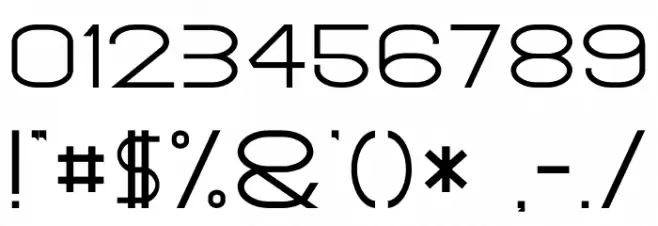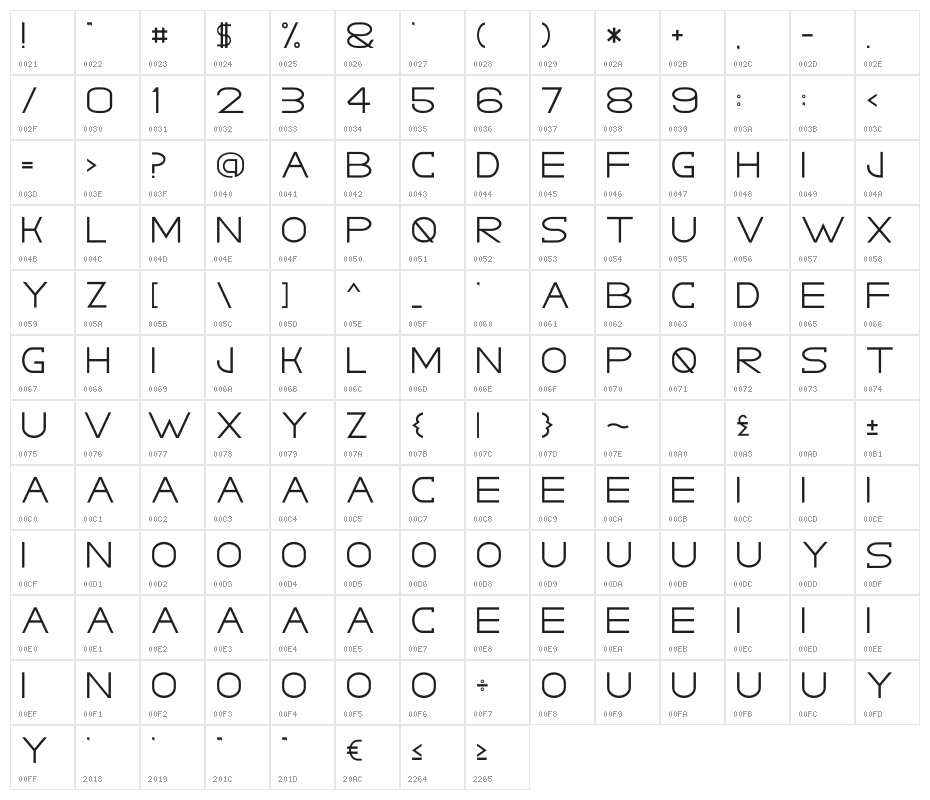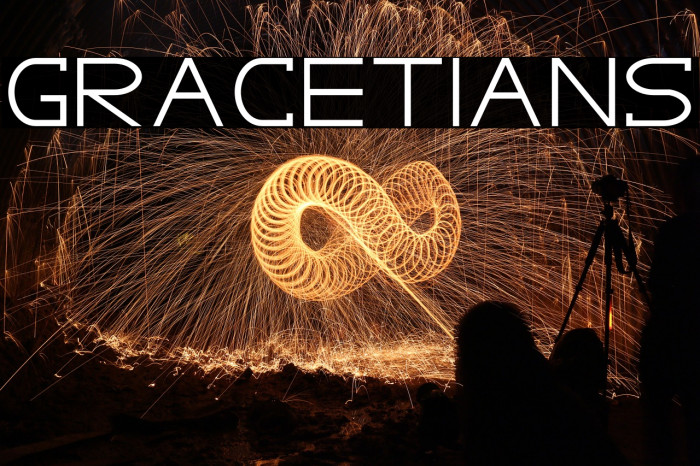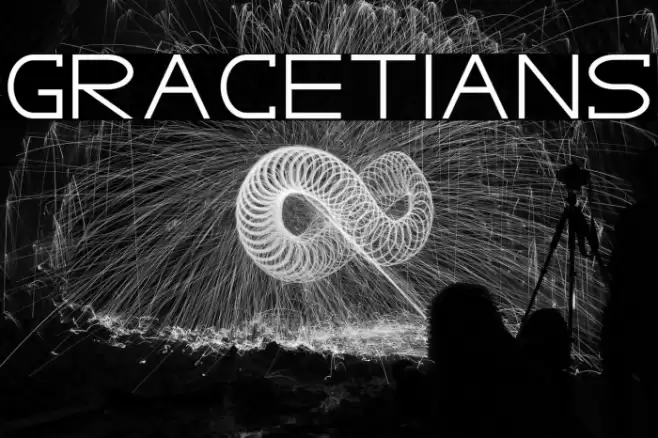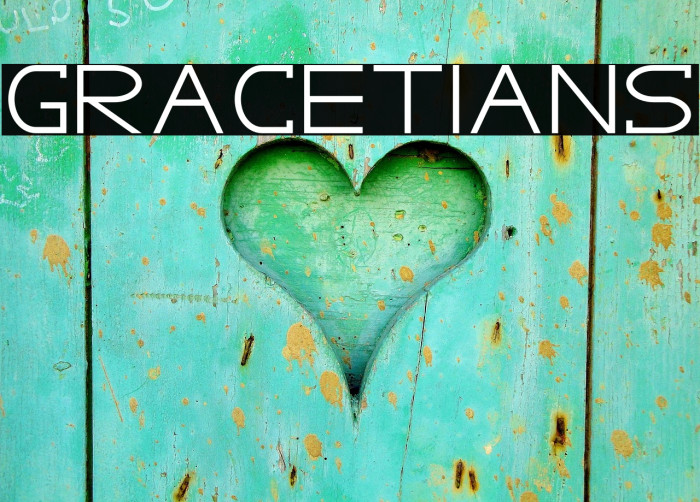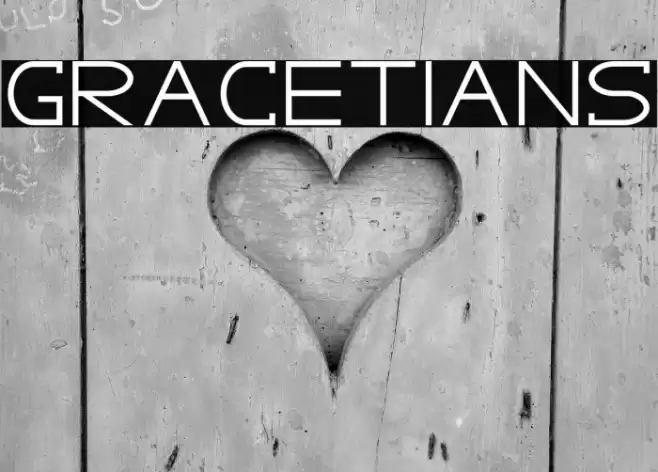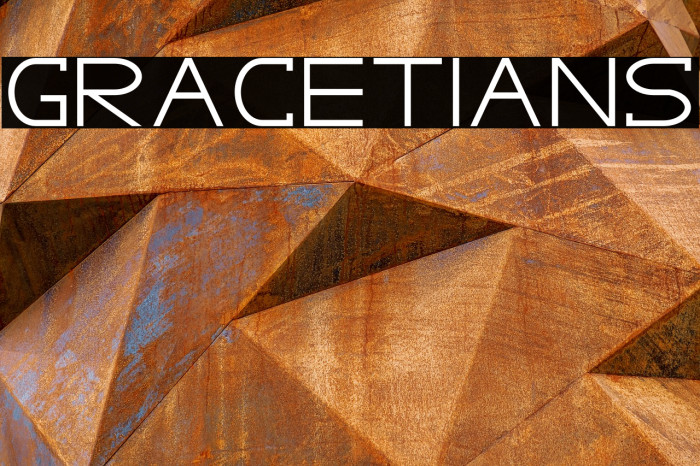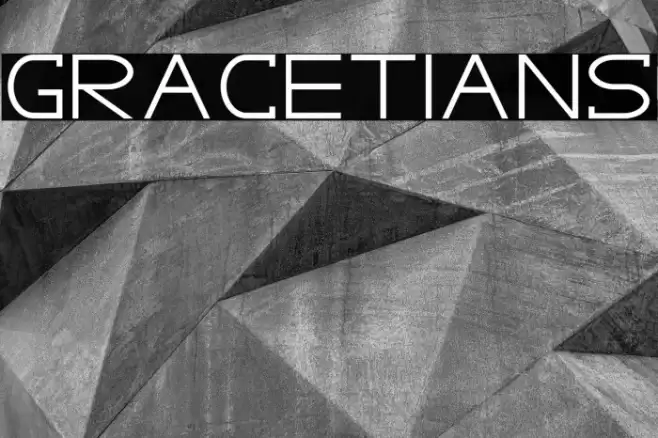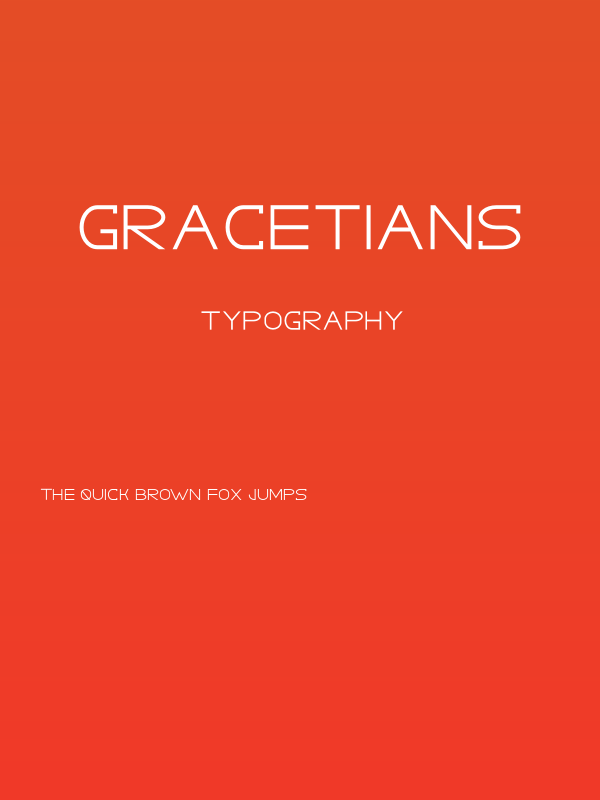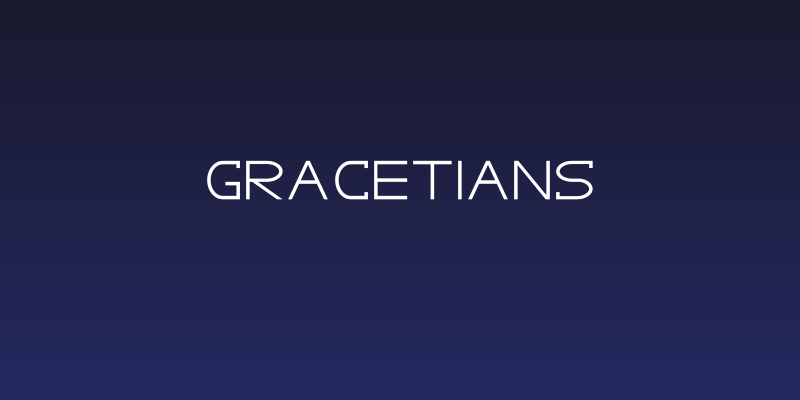
GRACETIANS Font
GRACETIANS Description
This font exhibits a sleek, modern aesthetic with clean lines and a geometric structure. The characters are uniform in width, giving it a monospaced appearance, although it is not strictly monospaced. The uppercase and lowercase letters share a consistent height, contributing to a harmonious and balanced look. The design is minimalistic, with a focus on clarity and readability, making it suitable for a variety of applications. The numerals are straightforward and align well with the overall style, while the special characters maintain the same clean and modern design ethos. This font is versatile, offering a contemporary feel that can enhance both digital and print media.